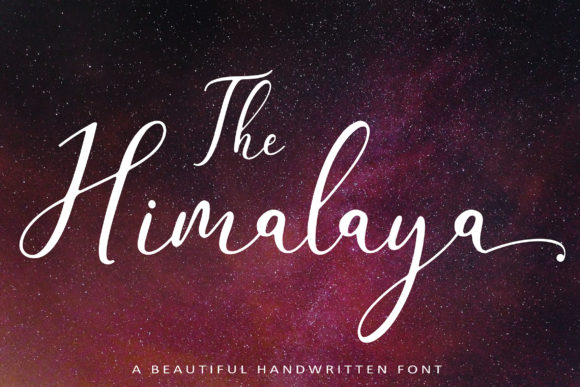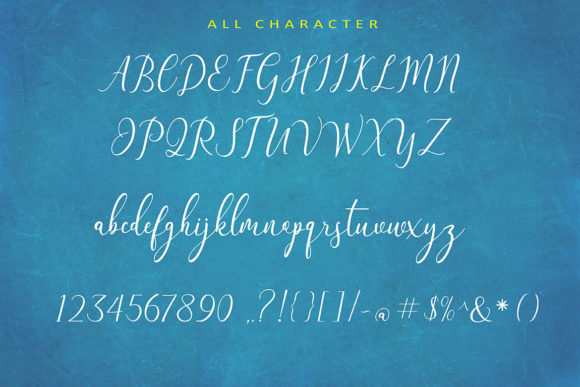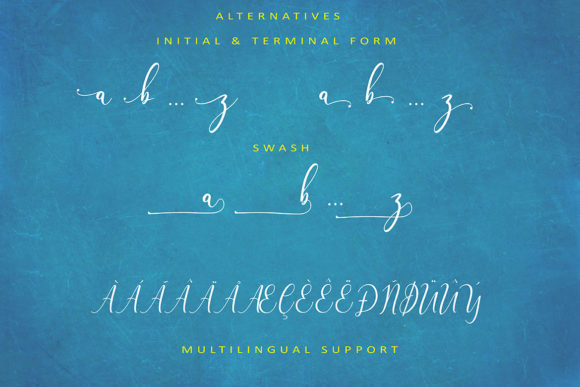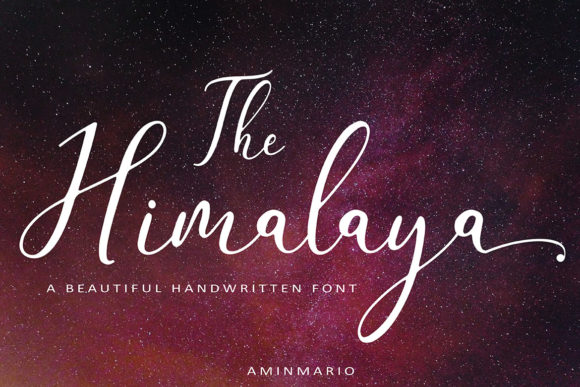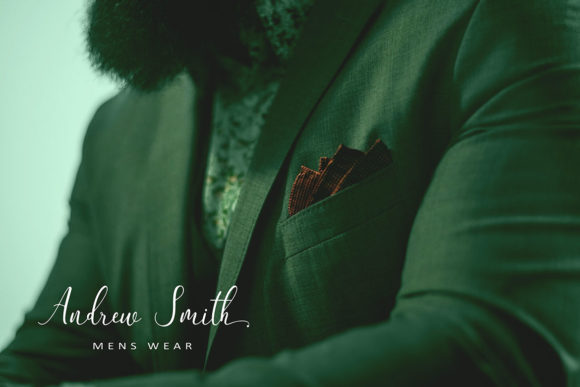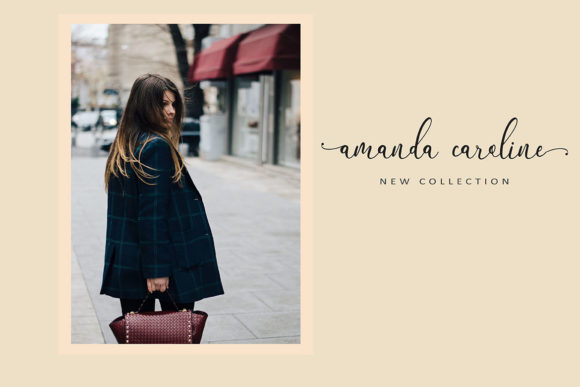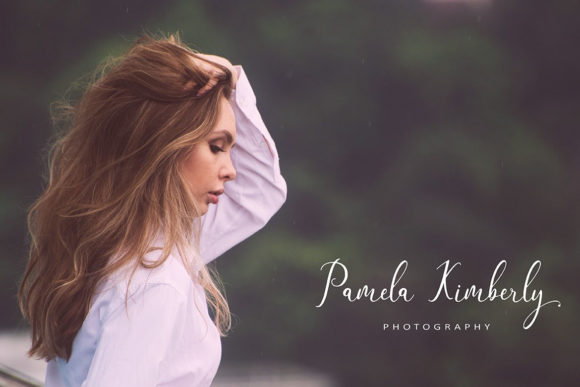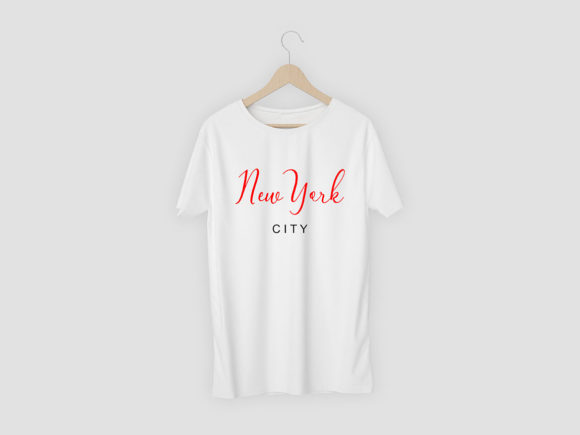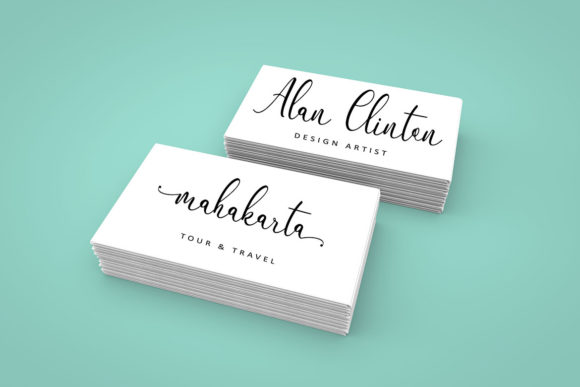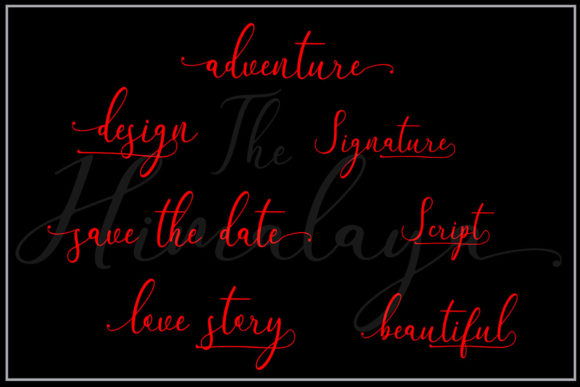
The Himalaya Font
About The Himalaya Font
The Himalaya is a modern script font with a stylish handwriting. It has a natural and classy look which makes is perfect for any design which needs a handwritten touch.
It’s suitable for logos, watermarks on photography, signatures, branding, advertisement, quotes, invitations, stationery, wedding design,album covers, business cards, clothing, magazines, posters, and more!